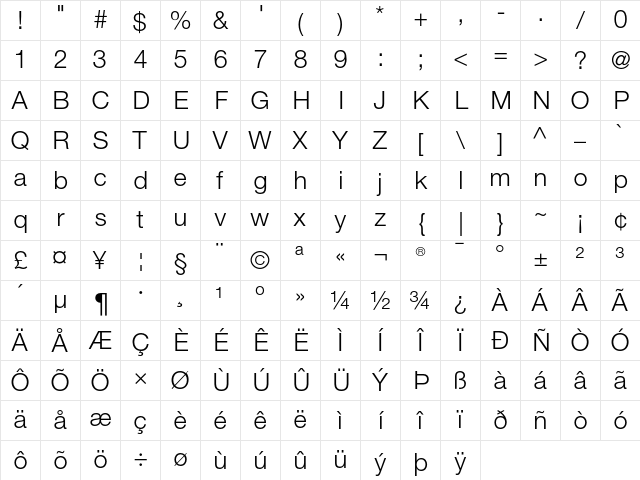
BMW Helvetica 45 Light
Style: 45 Light
Design Context for BMW Helvetica
BMW Helvetica is a composed and adaptable typeface that performs quietly and consistently across a wide range of design contexts. Its slender proportions lend an understated elegance to any composition.